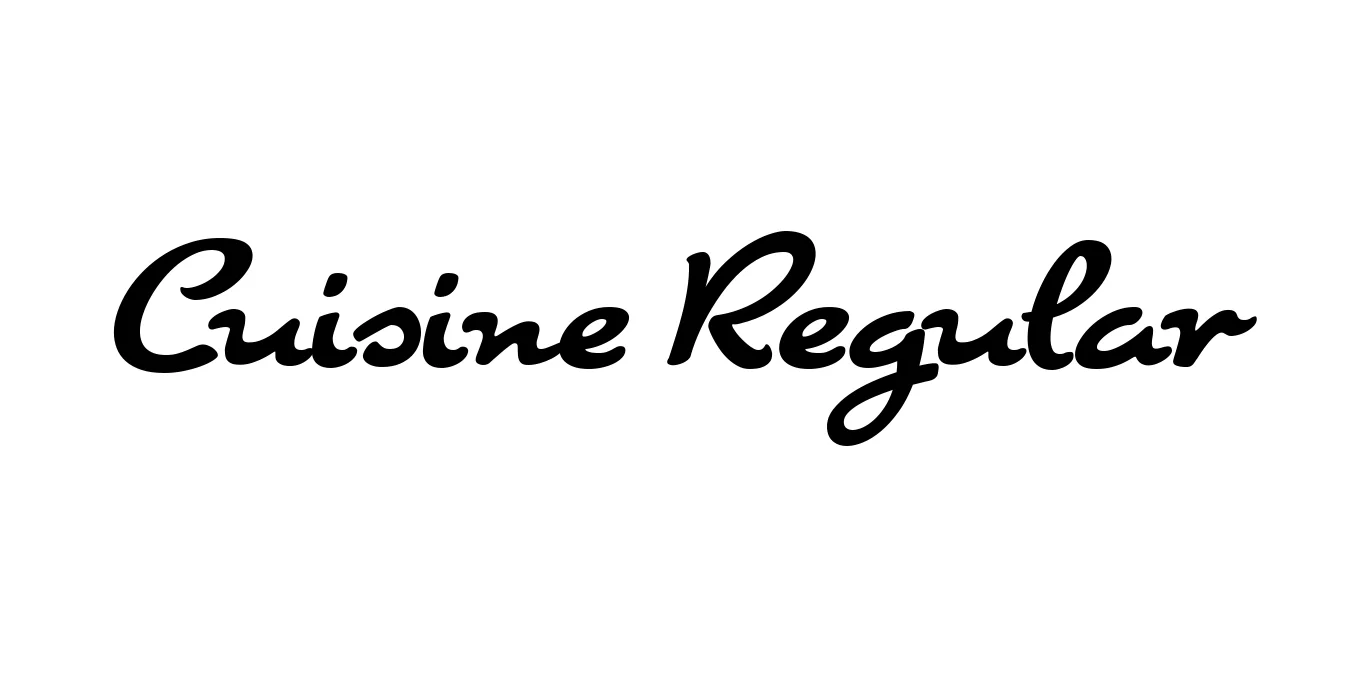
Cuisine Regular
Designed by Göran Söderström
Cuisine Regular is a contemporary script typeface that artfully captures the fluidity and charm of hand-drawn calligraphy. Developed with a focus on rhythmic movement, the font features soft, brush-like strokes that blend organic curves with precision. This balance makes it an exceptional choice for designers seeking a typeface that feels both personal and professionally polished, ensuring high legibility across both digital and print mediums.
The history of Cuisine Regular is rooted in the intersection of culinary arts and graphic design, originally intended to elevate menu typography and food packaging. Over time, it has become a staple for luxury branding and event stationery due to its sophisticated yet approachable aesthetic. Its extensive character set and graceful ligatures allow for a seamless flow, making every word appear custom-lettered for high-end creative projects.
Cuisine Regular Best Uses
Perfect for creating elegant and personalized brand identities.
Excellent for high-end restaurant menus and culinary branding.
Adds a sophisticated and hand-lettered touch to formal stationery.
Ideal for artisan product labels and organic packaging designs.